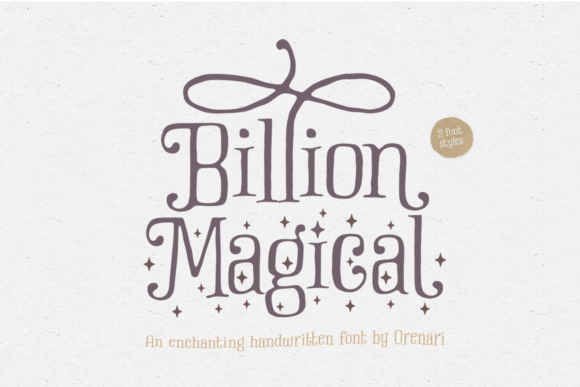
Billion Magical Font: Elevate Your Designs with Elegance and Enchantment
In the world of typography, few fonts manage to capture the essence of creativity and imagination as effectively as Billion Magical. This beautifully crafted handwritten font is designed to radiate charm, elegance, and a touch of enchantment, making it the perfect choice for a wide range of design projects. Whether you’re a professional designer or a creative enthusiast, Billion Magical offers a unique combination of smooth, flowing strokes and delicate curves that bring a sense of magic to every word.
What Makes Billion Magical Special?
One of the standout features of Billion Magical is its wide variety of alternate characters. This extensive range of options gives you the freedom to create dynamic and unique typography with every use, allowing your designs to stand out in a crowded creative landscape. The font’s versatility is further enhanced by its two distinct styles: the regular style and the sparkle one. This dual offering ensures that you can adapt the font to suit any project, from whimsical book covers and elegant invitations to artistic branding and fantasy-inspired projects.
Ideal for a Variety of Design Projects
Billion Magical’s adaptability is one of its most compelling attributes. This font can effortlessly be incorporated into a wide range of design applications, including:
- Whimsical Book Covers: Add a touch of fantasy and charm to your book covers, making them instantly captivating.
- Elegant Invitations: Create sophisticated and stylish invitations for weddings, parties, and other special events.
- Artistic Branding: Infuse your brand with personality and elegance, helping it to stand out in a competitive market.
- Fantasy-Inspired Projects: Bring your imaginative and fantasy projects to life with a font that embodies magic and wonder.
Bringing Warmth and Personality to Your Text
The carefully designed details of Billion Magical ensure that it brings warmth and personality to your text, making it perfect for those who want their designs to feel personal, artistic, and full of life. The font’s smooth, flowing strokes and delicate curves work together to create a sense of movement and fluidity, giving your text a dynamic and expressive quality.
With Billion Magical, you can say goodbye to dull and generic typography. Instead, you can create designs that are not only visually stunning but also rich in character and personality. Whether you’re working on a personal project or a professional assignment, this font is sure to inspire your creativity and help you to produce something truly special.
Two Unique Styles to Suit Your Needs
Billion Magical comes in two distinct styles: the regular style and the sparkle one. This dual offering provides you with the flexibility to choose the perfect look for your project.
- Regular Style: The regular style of Billion Magical is characterized by its smooth, flowing strokes and delicate curves. This style is perfect for designs that require a touch of elegance and sophistication.
- Sparkle Style: The sparkle style of Billion Magical adds an extra layer of magic and whimsy to your designs. With its subtle sparkle effect, this style is ideal for projects that require a touch of fantasy and wonder.
Tips for Getting the Most Out of Billion Magical
To truly harness the creative potential of Billion Magical, consider the following design tips:
- Experiment with Alternate Characters: Take advantage of the font’s extensive range of alternate characters to create unique and dynamic typography.
- Mix and Match Styles: Combine the regular and sparkle styles to add visual interest and depth to your designs.
- Play with Size and Color: Don’t be afraid to experiment with different sizes and colors to add emphasis and create a hierarchy of information.
Billion Magical is more than just a font – it’s a tool for creativity and self-expression. With its beautifully crafted handwritten design, wide variety of alternate characters, and two distinct styles, this font offers endless possibilities for designers and creatives. Whether you’re looking to add a touch of elegance and sophistication or a dash of magic and whimsy to your designs, Billion Magical is the perfect choice. So why wait? Let your creativity flow and bring your ideas to life with Billion Magical – a font that turns words into art and stories into unforgettable experiences.